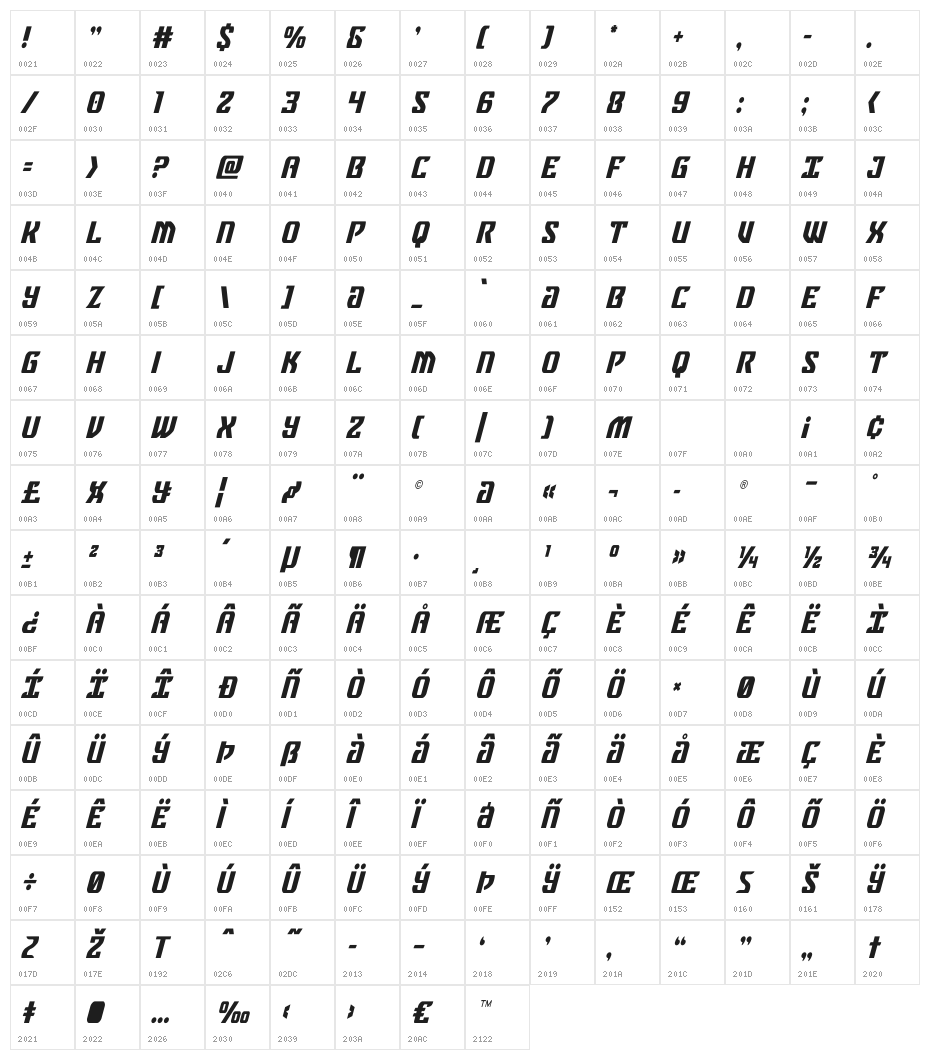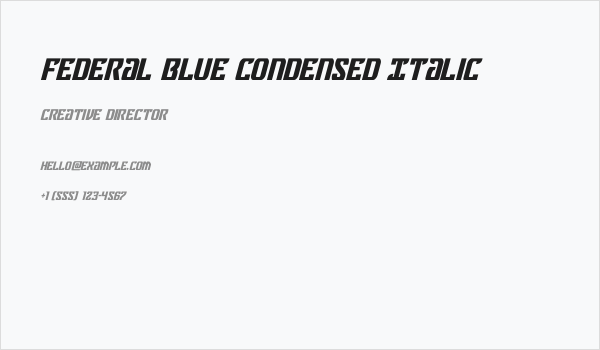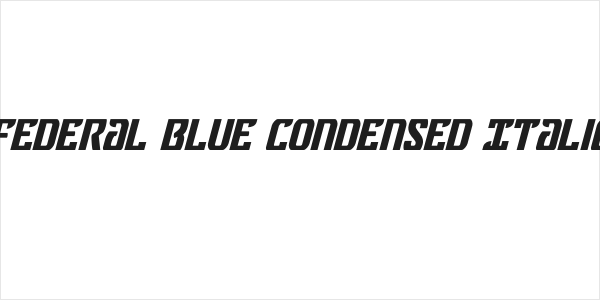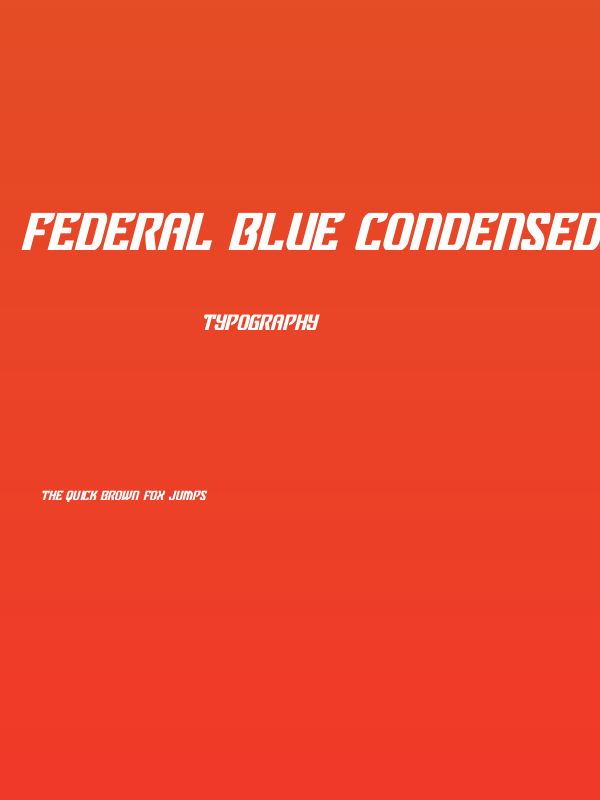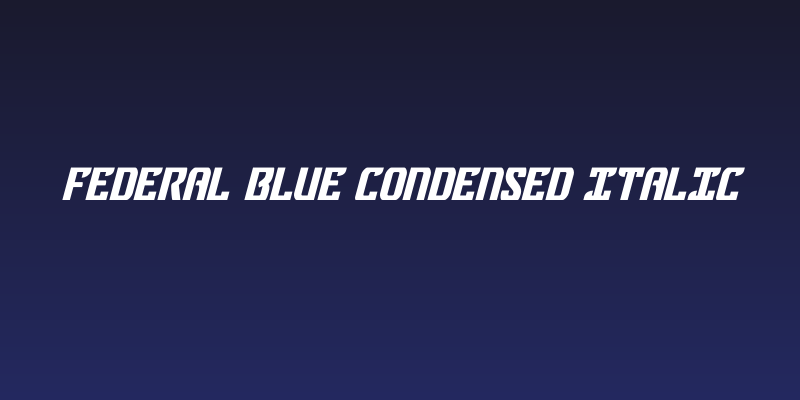
Federal Blue Condensed Italic Font
Federal Blue Condensed Italic Description
This font exhibits a bold and dynamic style with a distinct italic slant, giving it a sense of motion and energy. The characters are condensed, which allows for efficient use of space while maintaining readability. The strokes are thick and consistent, providing a strong visual impact. The angular design of the letters adds a modern and edgy feel, making it suitable for attention-grabbing headlines and titles. The numerals and special characters maintain the same bold and italicized characteristics, ensuring uniformity across all text elements.
| Proposed Projects | Ideal for sports branding, dynamic posters, modern advertising, and impactful headlines. |